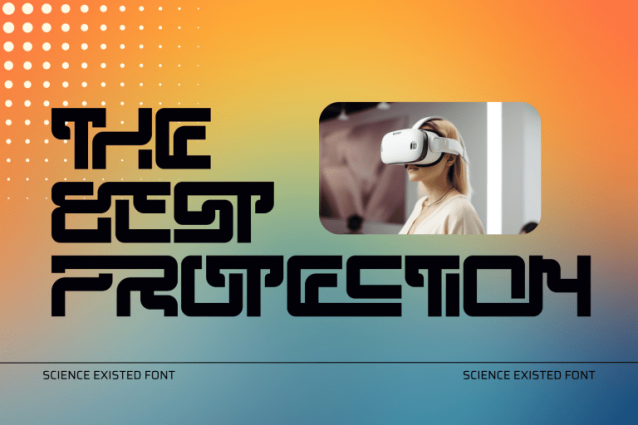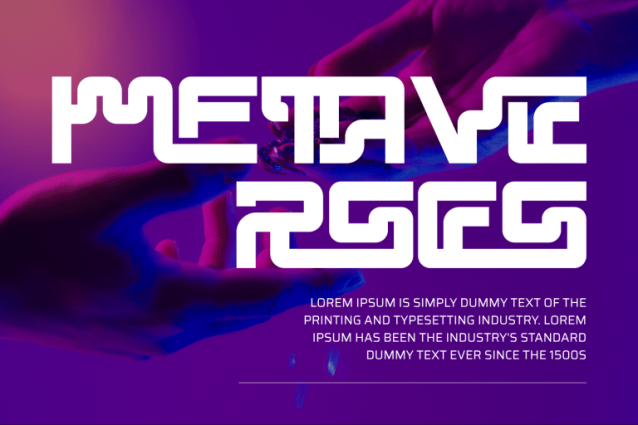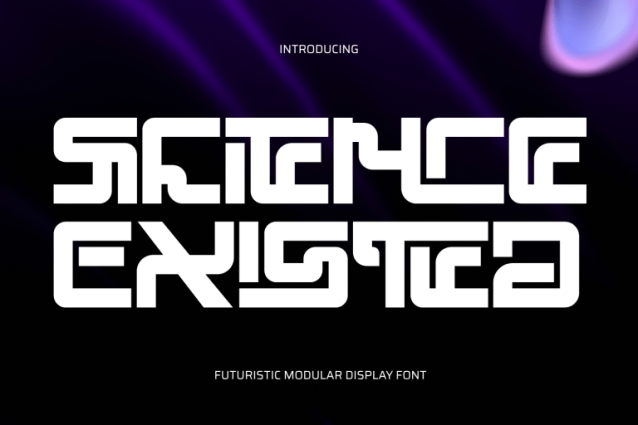
Science Existed Font
Science Existed – Futuristic Font is a bold futuristic geometric display typeface designed with a strong modular and sci-fi aesthetic. Built from solid blocky shapes and interconnected letterforms, this typeface delivers a powerful and compact visual impact inspired by advanced technology and digital systems. With its heavy uniform strokes, rounded corners, and precise geometric structure, Science Existed creates a seamless and dynamic rhythm across every word. This typeface is perfect for gaming titles, tech branding, AI visuals, futuristic posters, and digital interface design.
Uppercase & Lowercase Letters
Around 100 Special Ligatures & Alternates
Accented Characters for multilingual support
🔤About 100 ligatures combined with Stylistic Alternates Font: